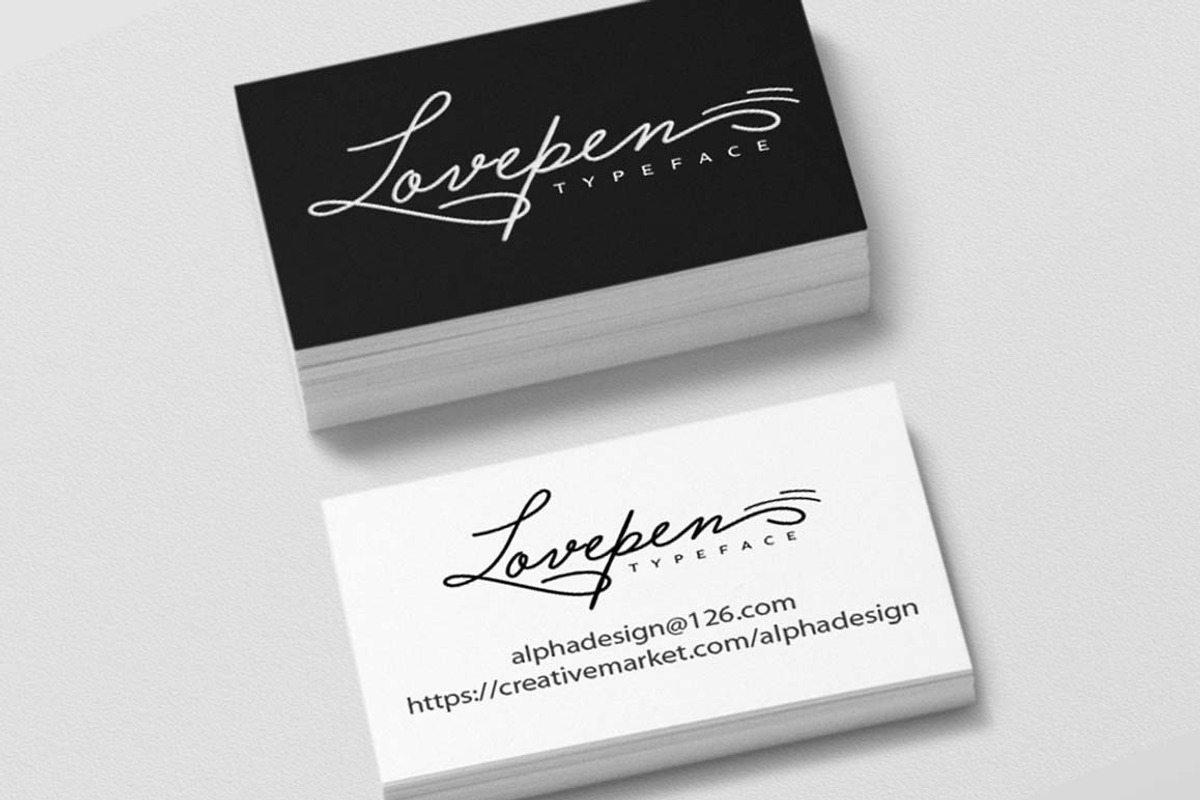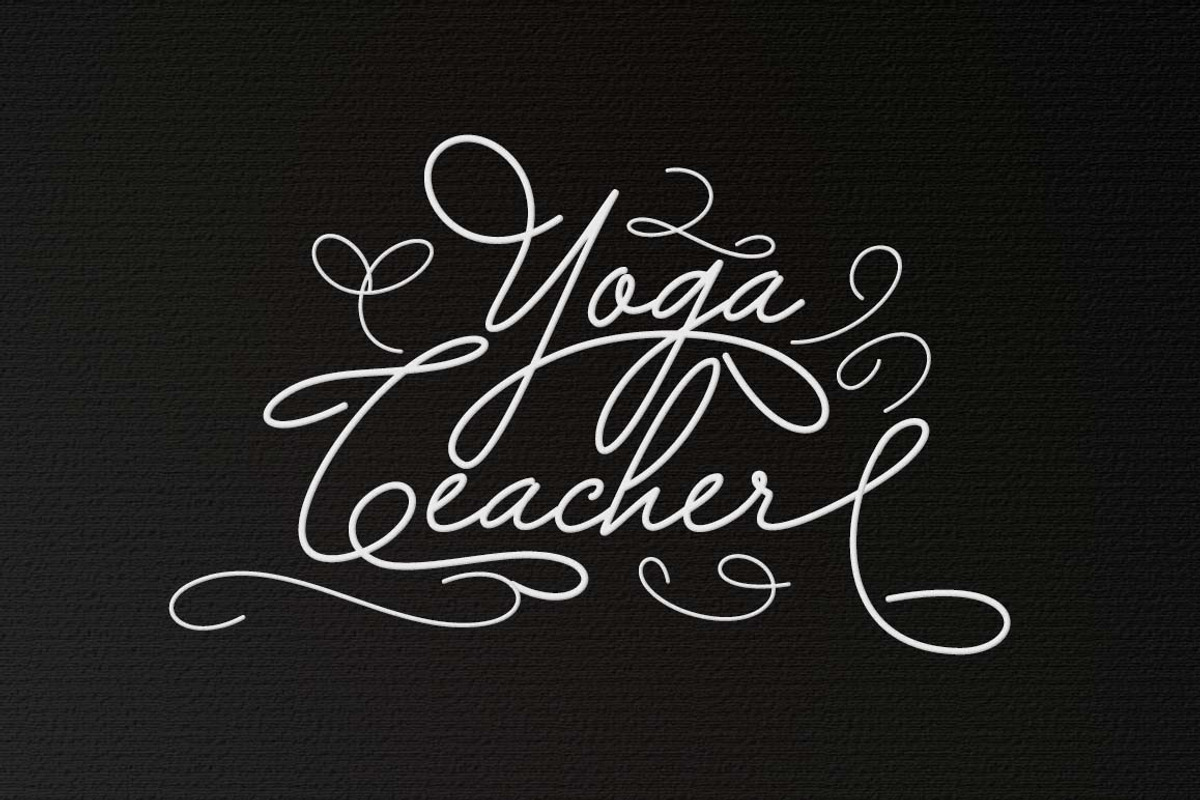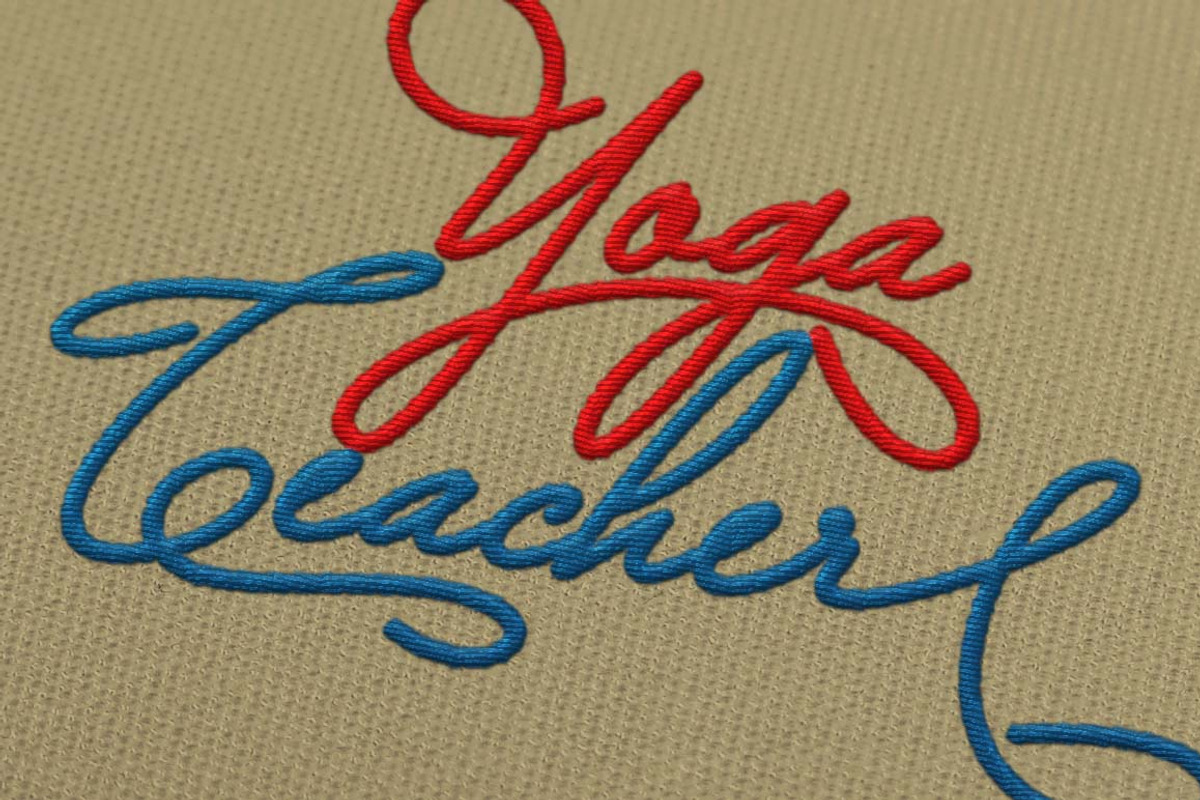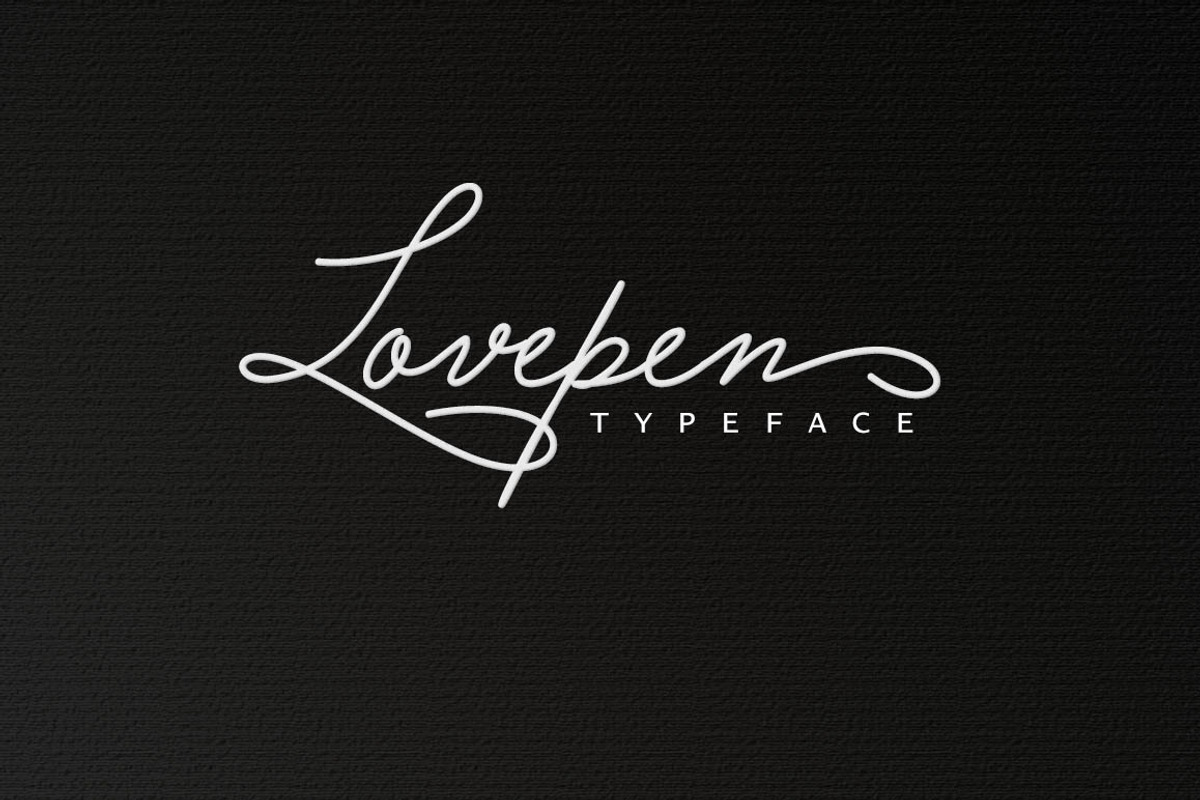
Lovepen Typeface
Lovepen Typeface by alphadesign is a font selected for branding, posters, packaging, typography.
- It also contains ligatures and contextual alternates,stylistic alternates, hope you like it.
Why Lovepen Typeface is worth a look
Lovepen Typeface by alphadesign fits naturally into Branding, posters, packaging, typography.